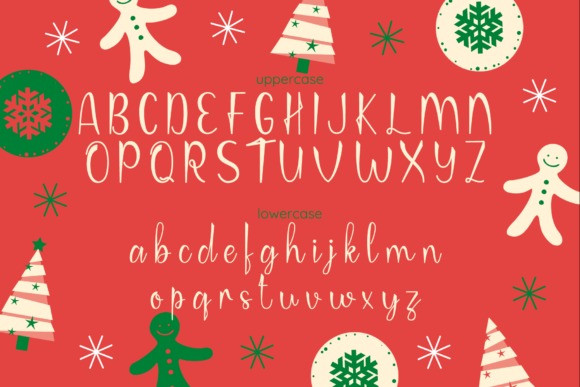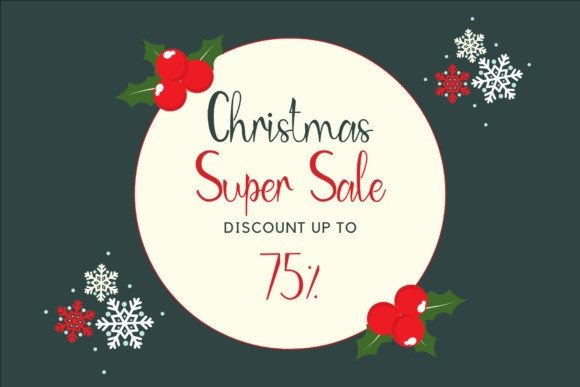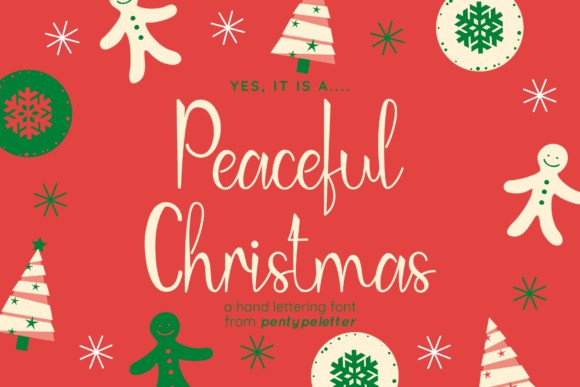
Peaceful Christmas Font
Peaceful Christmas Script Font is a delicate and elegant handwritten font. Its distinct and well balanced letters make this font a masterpiece. Fall in love with its incredibly versatile style and use it to create spectacular designs!